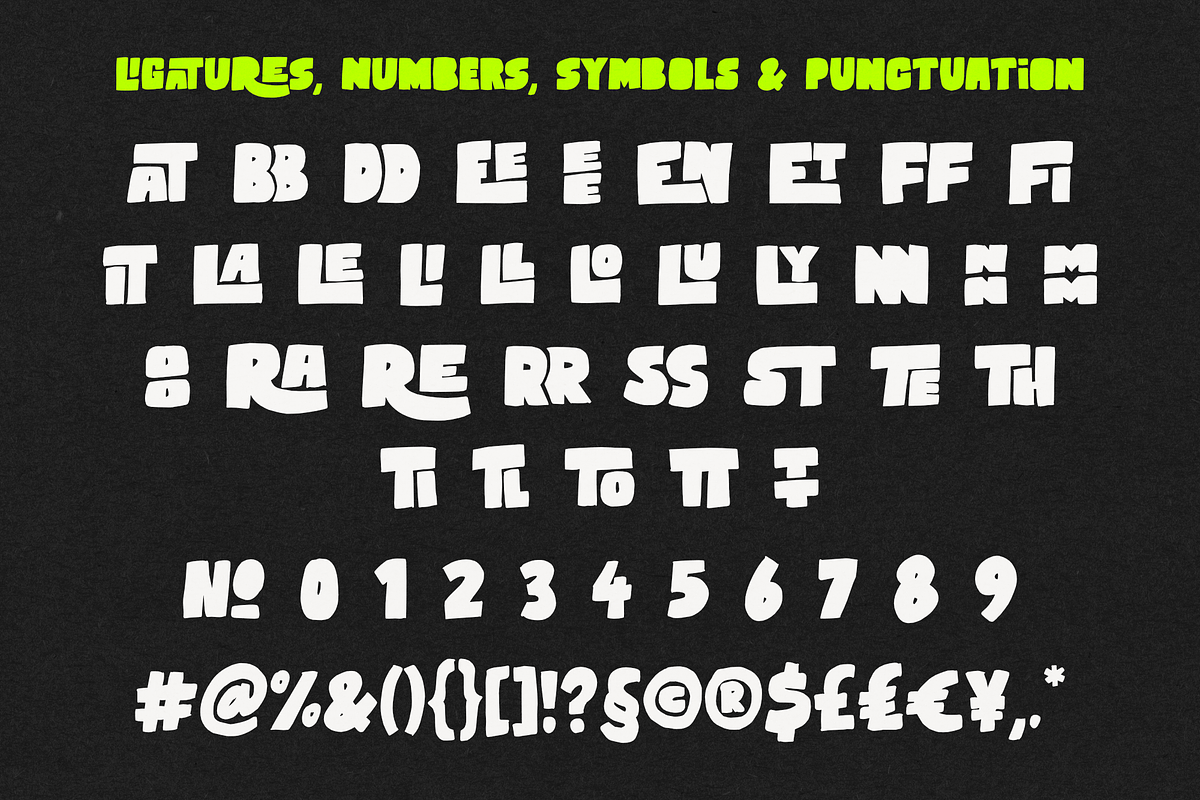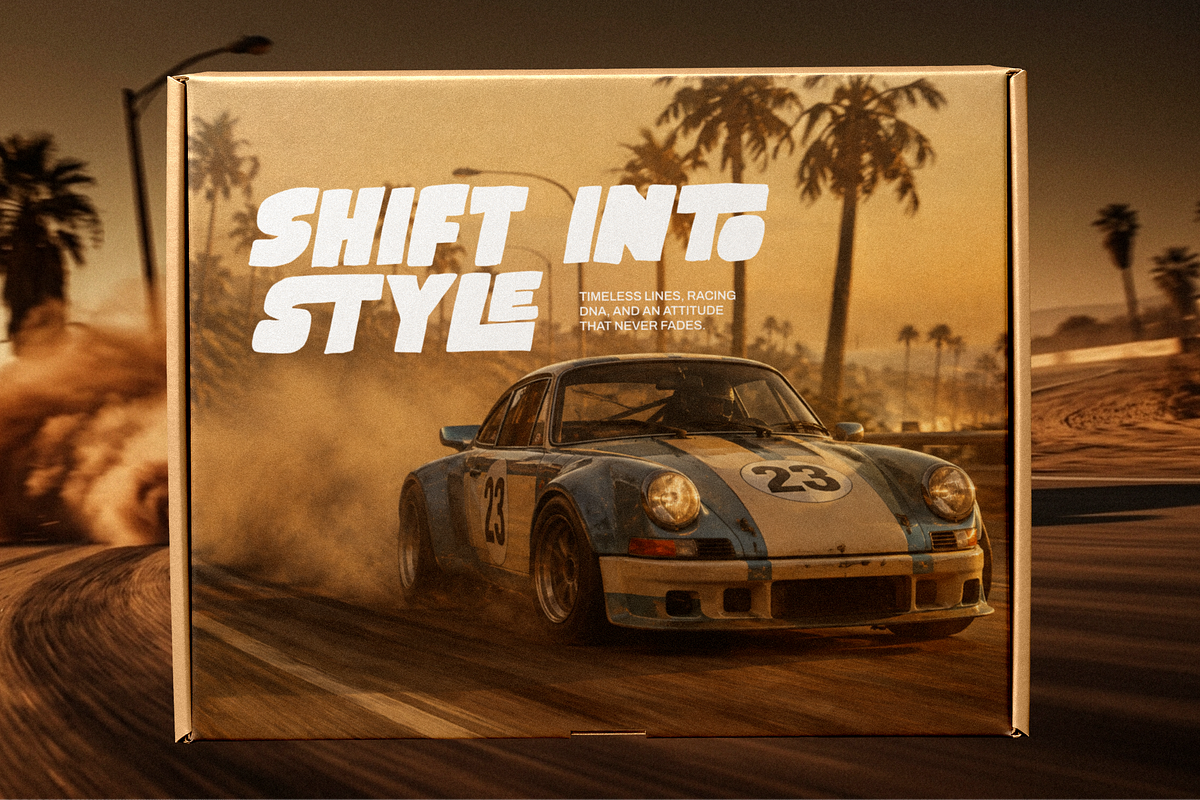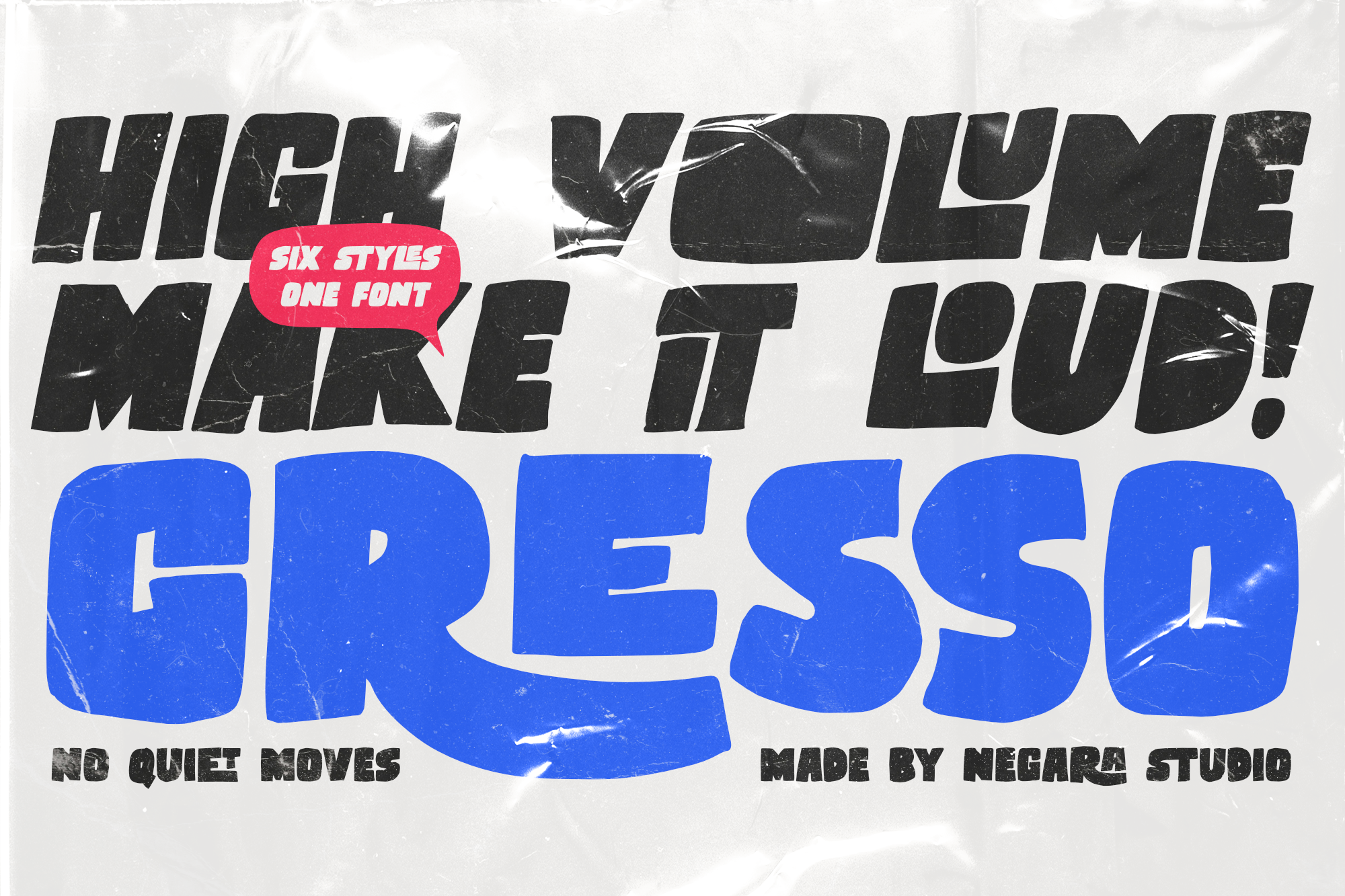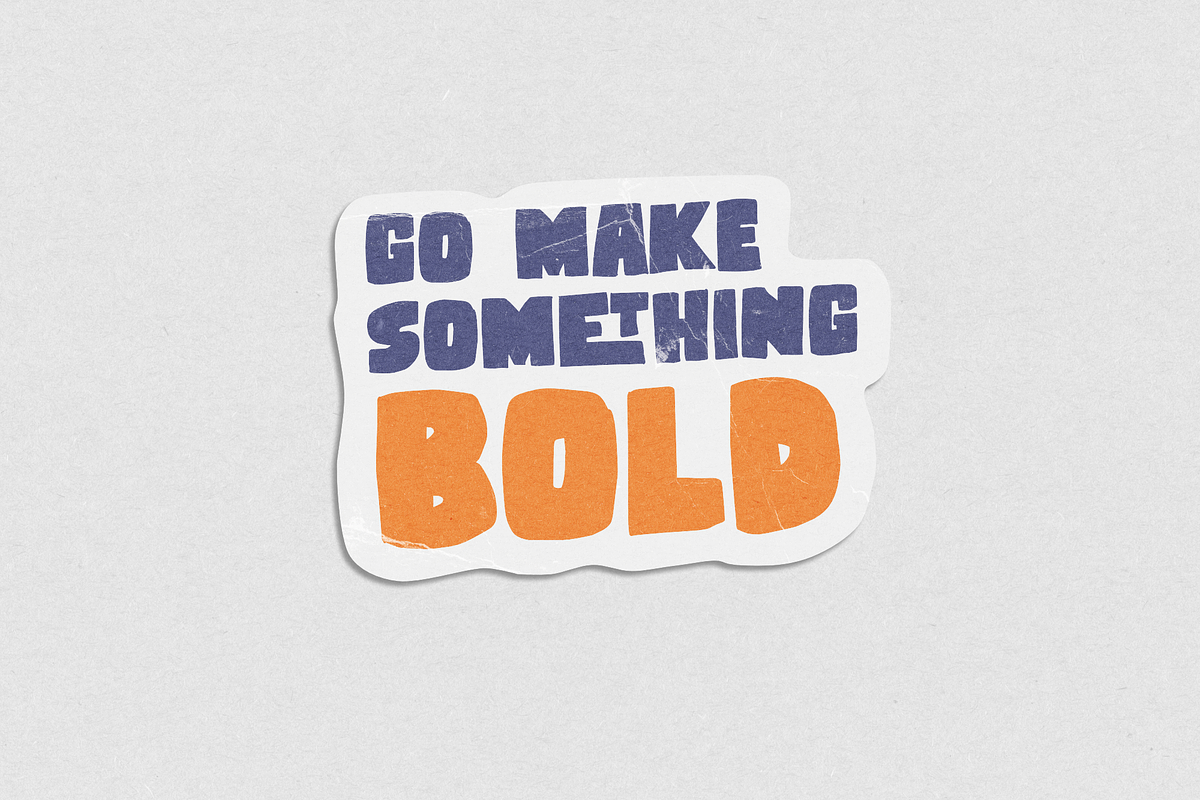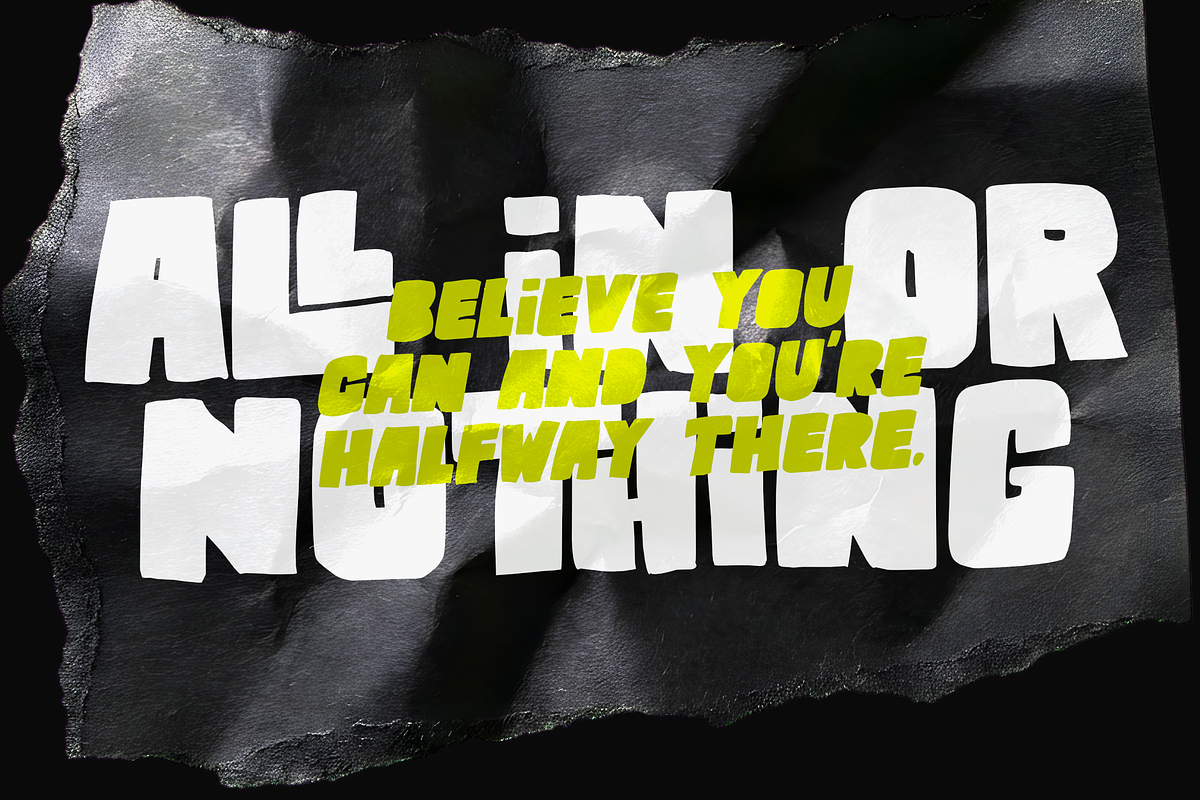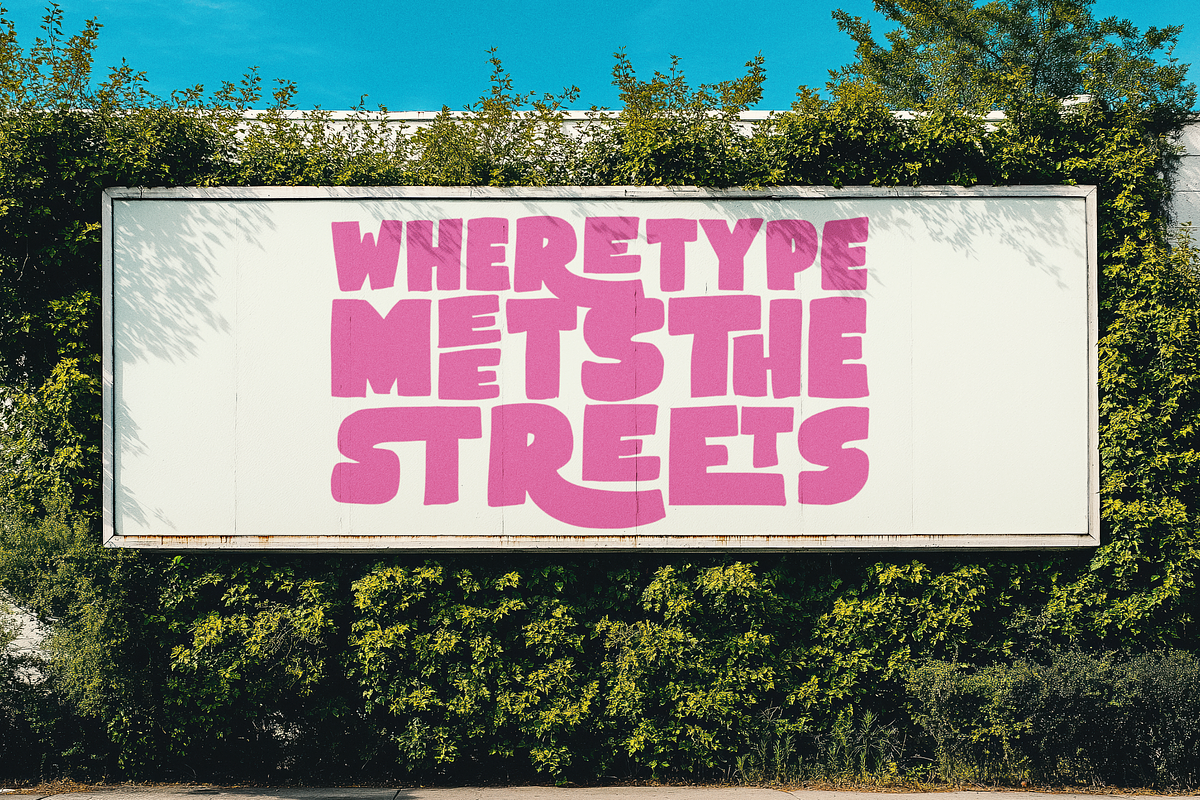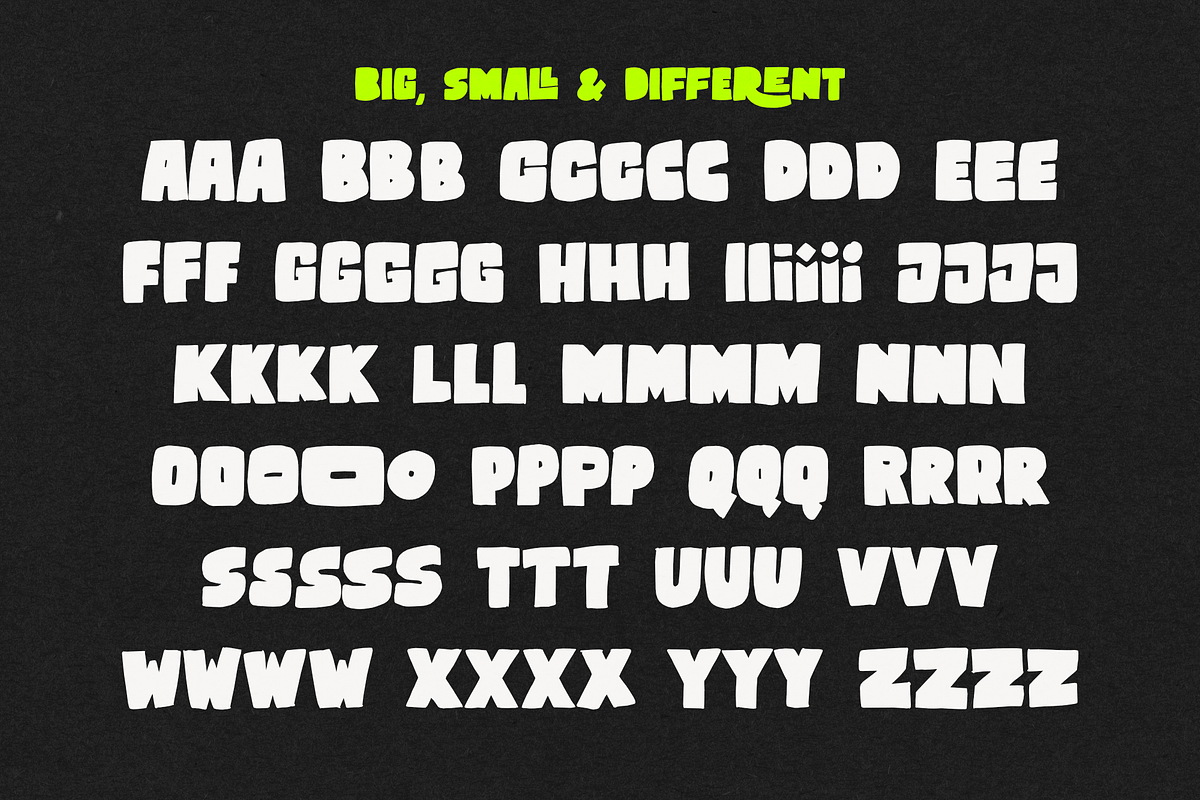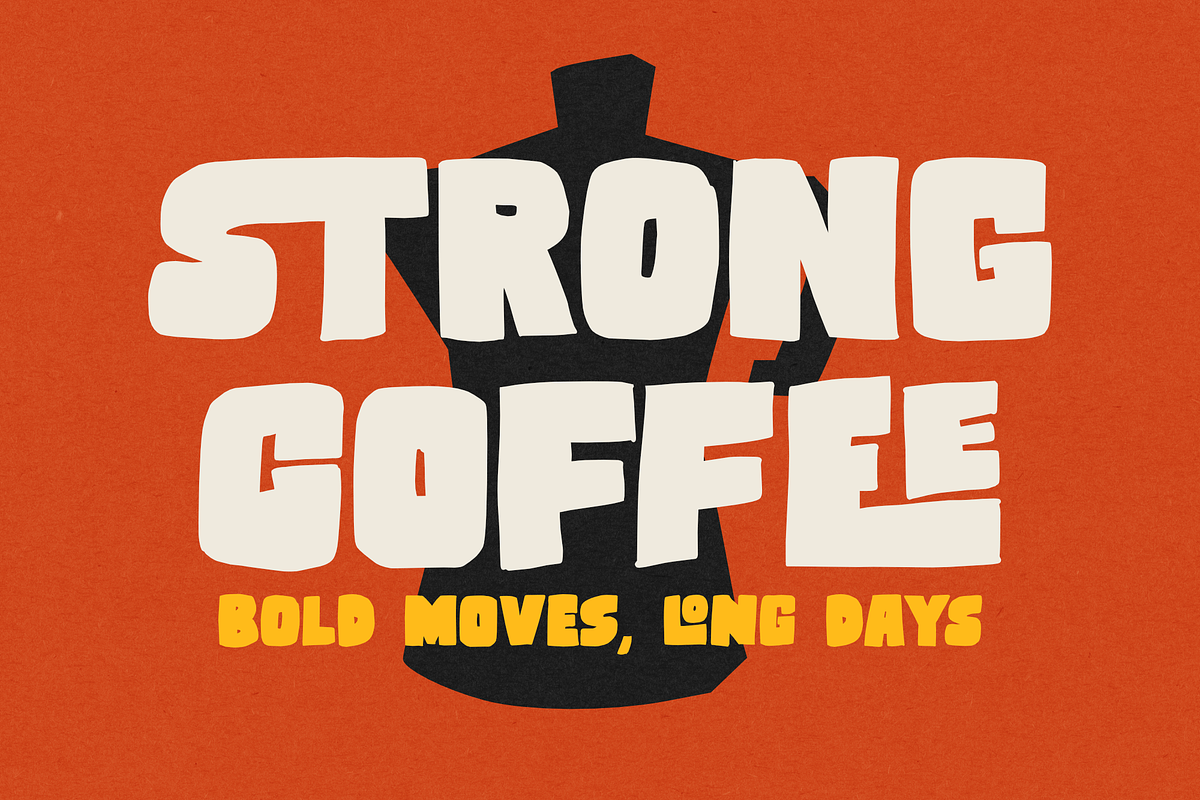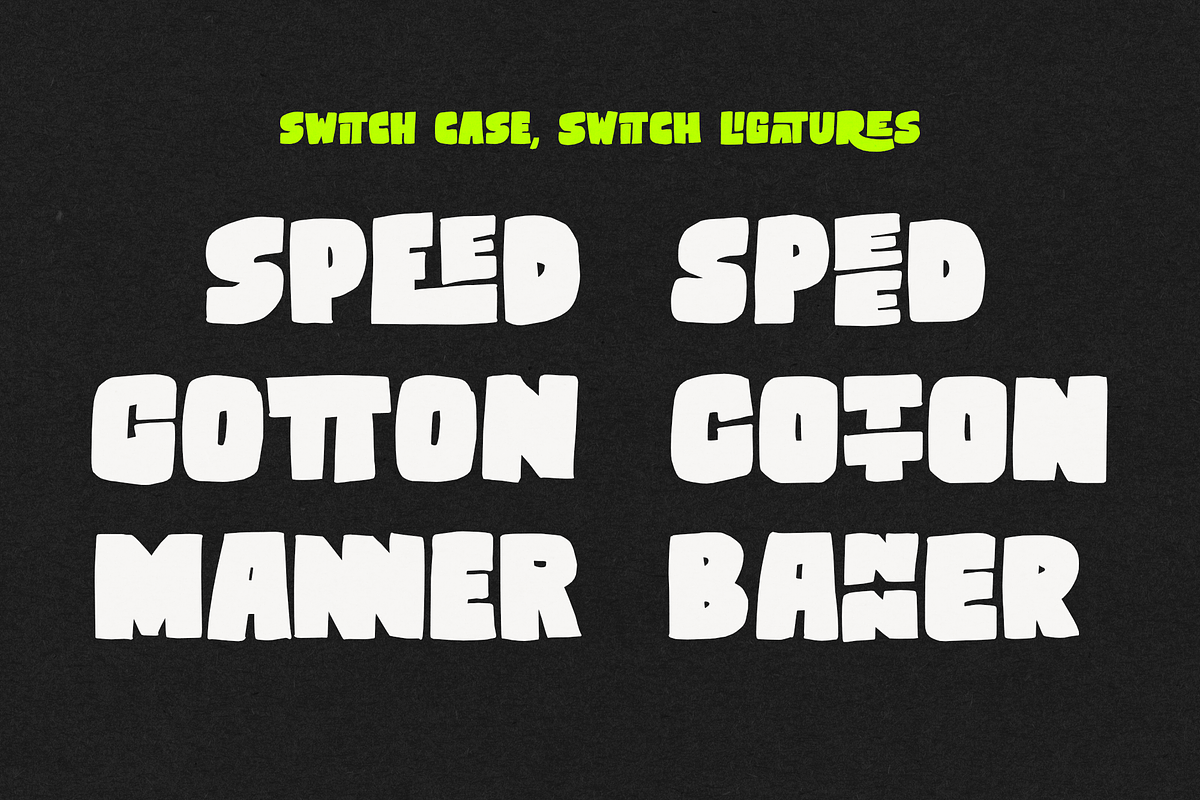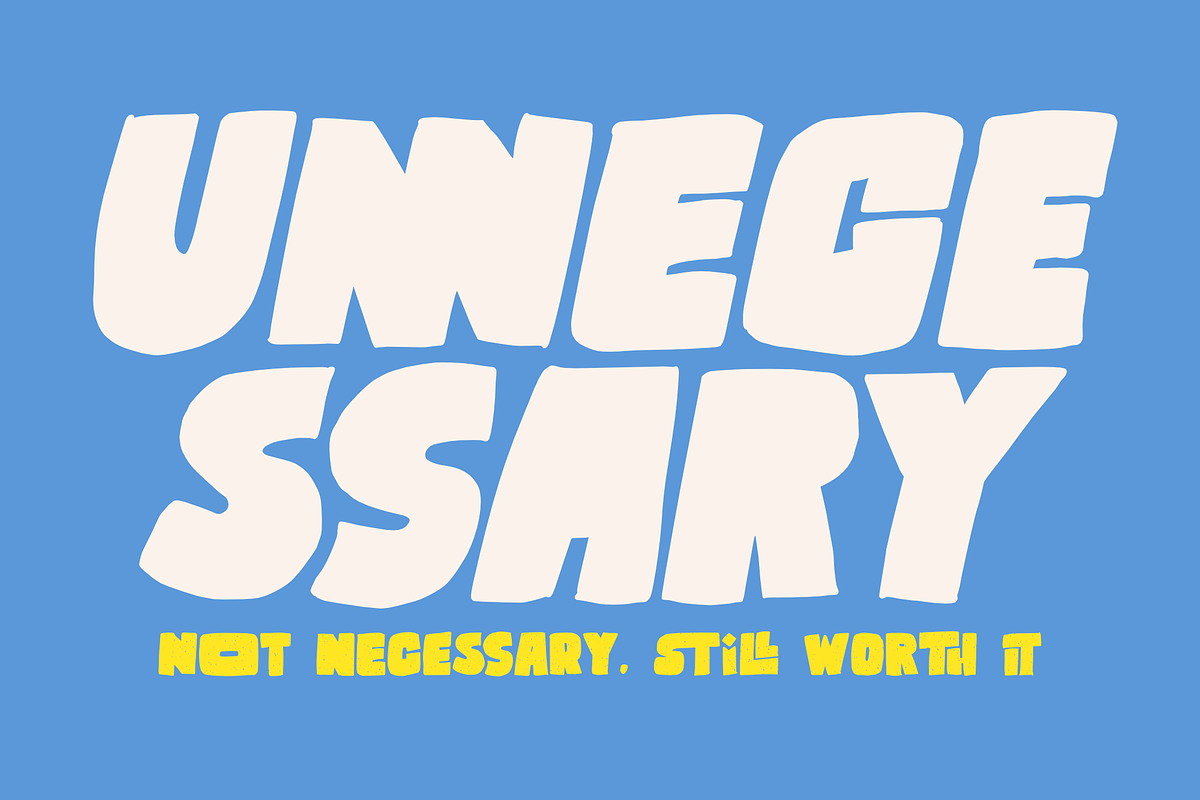
Cresso – Bold Casual Font
CRESSO — BOLD CASUAL DISPLAY FONT
Cresso is a bold and casual display font inspired by street culture, handmade lettering, and expressive typography. Its strong presence and distinctive character make it a versatile choice for designs that need to stand out.
With 6 styles, Cresso gives you different ways to build your visual style:
• Cresso Regular • Cresso Regular Oblique • Cresso Grit • Cresso Grit Oblique • Cresso Blackout • Cresso Blackout Oblique
Cresso also includes a selection of ligatures, numbers, symbols, and punctuation to give your typography more personality.
The font features different ligature sets for uppercase and lowercase input. Although Cresso maintains an all-caps appearance, switching between uppercase and lowercase allows you to access different ligature variations such as EE / ee, TT / tt, and NN / nn.
From clean and bold to gritty and expressive, Cresso gives you the flexibility to create typography with attitude.
6 STYLES. MORE WAYS TO CREATE.
CRESSO — TAKE IT TO THE STREETS.